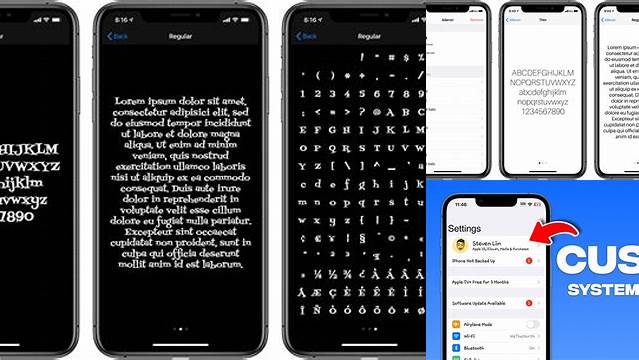
IPhone Font Magic: Your Guide To System Fonts
Hey everyone! Ever wondered how to jazz up the look of your iPhone with different fonts? Well, you're in luck! This guide will walk you through how to use system fonts for iPhone, covering everything from the basics to some cool customization tricks. Let's dive in and make your iPhone stand out!
H2: Understanding iPhone System Fonts: The Foundation
Alright, before we get to the fun stuff, let's chat about what iPhone system fonts actually are. Think of them as the building blocks of the text you see on your screen. These are the fonts used throughout your iOS interface – in apps, menus, messages, and more. Apple has a few default fonts they use, like San Francisco, which is their primary system font. But the cool thing is, how to use system fonts for iPhone opens up a world of possibilities! You can subtly or dramatically change the look and feel of your phone. Choosing the right font can make your device easier on the eyes, more stylish, or even better suited to your personality. This involves understanding where these fonts live within your device's system. They're not just random files; they're integrated into the iOS framework. This means that direct modification is usually off-limits (unless you're into jailbreaking, which we won't cover here). Instead, we'll focus on the ways you can personalize your font experience within the confines of Apple's ecosystem. Keep in mind that system fonts are different from the fonts you can use in certain apps like Pages or design software. These system fonts affect everything from your home screen to the text you see in Settings. This level of customization can seriously change the vibe of your phone. So, let's get into the nitty-gritty of how to use system fonts for iPhone.
H3: The Default Fonts on Your iPhone
Your iPhone typically comes with a set of default fonts designed for readability and a consistent user experience. The most prominent is San Francisco, which is Apple's signature font. It's designed to be clean, modern, and easy to read at various sizes. You'll find it throughout the iOS interface, from the text in your Settings app to the labels on your home screen icons. Another default is Helvetica Neue, which provides a more traditional sans-serif option. Occasionally, you might encounter other fonts depending on the specific app or interface element. Understanding these defaults is crucial because they set the baseline for any changes you might make. It's also worth noting that Apple occasionally updates these default fonts with new iOS versions, refining their design and readability. Knowing the default fonts helps you appreciate the subtle nuances of font design and how they contribute to your iPhone's overall aesthetic. For those of you who are a bit more into the design world, it's beneficial to be aware of the characteristics of each font and how they impact the overall visual hierarchy of your device. These defaults are often carefully selected to enhance the user experience and maintain consistency across Apple's product line. Therefore, when figuring out how to use system fonts for iPhone, it is important to know the defaults.
H2: Accessing Font Settings on Your iPhone
Let's get down to business! The first step in how to use system fonts for iPhone is to know where the settings are. Unlike Android, iOS doesn't offer extensive system-wide font customization directly from the Settings app. However, there are still ways to adjust how text is displayed, particularly for accessibility purposes. Navigate to 'Settings' on your iPhone, and then tap on 'Display & Brightness'. Here, you'll find options for adjusting the text size. This doesn't change the actual system font, but it modifies the size of the text elements, making it easier to read. The 'Bold Text' option, also found in the Display & Brightness settings, lets you make all text on your iPhone bolder. This can significantly improve readability for users with visual impairments or those who simply prefer a bolder look. While these settings don't let you change the font, they're essential tools for making your iPhone more accessible and comfortable to use. For those who want more control over fonts, we'll cover other methods, such as using specific apps or installing font profiles. It’s also good to explore the accessibility features, found within the 'Accessibility' settings. You can find options for display & text size, including larger text, which lets you increase the size of text in certain apps. These settings customize the visual experience to match your needs. Remember, accessibility features are about more than just font choices. They're about making your device a better tool for everyone. That’s why we want to explain how to use system fonts for iPhone.
H3: Adjusting Text Size and Boldness for Readability
Making your iPhone's text easier to read is a great starting point when exploring how to use system fonts for iPhone. The Display & Brightness settings are your go-to spot for this. First, go to 'Settings', then 'Display & Brightness'. Here, you can adjust the text size with a slider. This will affect text across your interface, making everything larger or smaller. Next, you can enable 'Bold Text'. This applies a bolder weight to the font, making it stand out more clearly, especially helpful for users with visual impairments. These features are designed to enhance readability, allowing users to customize their visual experience. Consider experimenting with these settings to find the perfect balance between comfort and aesthetics. Also, keep in mind that these settings don't change the font itself, but they improve the display of text, allowing for a more customized experience. For those with specific visual needs, these are crucial tools that enhance the usability of your iPhone. By understanding these options, you take the first step towards a device tailored to your visual preferences, and we'll show you how to do it in relation to how to use system fonts for iPhone.
H2: Using Third-Party Apps for Font Customization
Alright, let's explore how to use system fonts for iPhone by using third-party apps. Since iOS doesn't provide native system font customization, apps fill the gap, offering limited font modifications. These apps primarily work by changing the fonts used within their own apps, such as note-taking apps or word processors. Some apps might offer a wider range of fonts to choose from, or allow you to upload your own. But keep in mind that the impact is usually limited to the app itself, and won't change your system-wide font. When exploring third-party apps, make sure you check the reviews and permissions requested. Look for apps that respect your privacy and only request necessary permissions. Also, remember that the fonts offered within these apps are usually licensed and designed for specific uses. It’s important to respect these licensing agreements. It's also worth noting that some apps integrate with system features like the share sheet, allowing you to use custom fonts when sharing content. While these apps don't completely change your iPhone's font system, they do offer opportunities to personalize your experience. Let's delve deeper into how to effectively use these apps in our quest to find out how to use system fonts for iPhone.
H3: Exploring Apps with Font Customization Features
Several apps offer font customization features, enabling you to personalize your text experience. These apps let you change the font within the app itself, offering options like different typefaces, font sizes, and styles. Look for apps with a variety of font choices, ranging from classic to modern styles. It is also good to look for apps with advanced customization, allowing you to adjust spacing and kerning. Consider apps that integrate seamlessly with your existing workflow, allowing you to use these custom fonts within your daily tasks. Keep an eye out for apps that offer a user-friendly interface. Many font-customization apps provide a preview function, letting you see how your text will look with the selected font. Also, check to see if the app supports the file formats you use regularly. When exploring apps, make sure you understand the app's permission requirements. Some apps may require access to your device's files or other personal information. Always read the privacy policy to ensure the app handles your data safely. Remember, these apps change the font within the app, not your entire system. That means the changes are limited to the app you're using. Nevertheless, the options still help if you want to know how to use system fonts for iPhone.
H2: Installing Font Profiles on Your iPhone
Here’s a more advanced technique to personalize your iPhone – how to use system fonts for iPhone by installing font profiles. Font profiles are configuration files that, when installed, let you use custom fonts within certain apps. Technically, these profiles don't alter the core system font, but they provide the ability to use different fonts in supported apps. You'll typically find font profiles available for download from font websites or as part of specific apps. To install a font profile, you’ll usually download the file, and then open it on your iPhone. iOS will prompt you to install it via your Settings app. After installation, the font should be available in apps that support custom fonts. However, the exact process can vary. It’s crucial to be cautious when installing profiles from unknown sources. Always research the font creator and website to ensure the profile is legitimate. Installing fonts this way may not be compatible with all apps, and the fonts may not be available across your entire system. This method may require more technical steps but opens up new opportunities for customization. Always back up your iPhone before installing any new profiles as a safety precaution. Let’s look at how this helps us better understand how to use system fonts for iPhone.
H3: Finding and Installing Font Profiles Safely
Finding and installing font profiles can significantly enhance your iPhone's appearance. Start by researching reputable font websites. Look for sites that offer free fonts or fonts for purchase. When you find a font you like, download the font file, typically in .ttf or .otf format. Remember to ensure that the font is licensed for personal or commercial use, depending on your needs. Once downloaded, you typically open the file on your iPhone. This triggers the installation process. iOS will then guide you through the process, usually through the Settings app. You’ll be prompted to install the profile, which adds the font to your system. After installing the font profile, you should be able to use it in apps that support custom fonts. However, always exercise caution when installing font profiles. Always ensure that the source of the font is trustworthy. Unknown sources could contain malicious software. Therefore, verify the authenticity of the font before installation. Installing profiles from untrusted sources can put your device at risk. After installation, make sure to check the font’s appearance within apps and adjust settings if necessary. Finally, always have a backup of your device before installing any profiles, just in case something goes wrong. This is one of the more involved options of understanding how to use system fonts for iPhone.
H2: Font Management in Specific Apps
Let’s move on to the world of apps! Understanding how to use system fonts for iPhone means you need to learn about font management within specific apps. Many apps designed for text input or creative work let you customize fonts within the app. Apps like Pages, Microsoft Word, and even some note-taking apps provide a wide range of font options, allowing you to choose fonts for your documents or notes. Font management varies by app. You can find font selection options in the app's settings or directly in the text formatting tools. Within each app, you can select fonts, adjust sizes, and customize styles like bold, italics, or underline. Some apps also let you import custom fonts. So, if you've installed a font profile, it might appear in the app’s font selection menu. Explore each app's font options. You might be surprised at the degree of control you have. Understanding the font management within each app ensures you can tailor your text to your preferences. Remember that changes are usually confined to the app itself. So, if you change a font in Pages, that change won’t reflect in other apps. But this specific management approach still helps you see how to deal with how to use system fonts for iPhone.
H2: Conclusion: Elevate Your iPhone Experience with Fonts
Alright, folks! We've covered a lot about how to use system fonts for iPhone! From understanding the basics to exploring third-party apps and the latest font trends, you are ready to make your iPhone your own. By adjusting text size, enabling bold text, or experimenting with different font profiles, you can customize your iPhone. Be sure to consider font licenses and download fonts safely. Always explore the font management options within each app. By focusing on readability and user comfort, you can elevate your iPhone experience. This isn't just about appearance. It's about creating a device that truly works for you. So, get out there, experiment, and enjoy the beautiful world of fonts! Now you know how to use system fonts for iPhone.